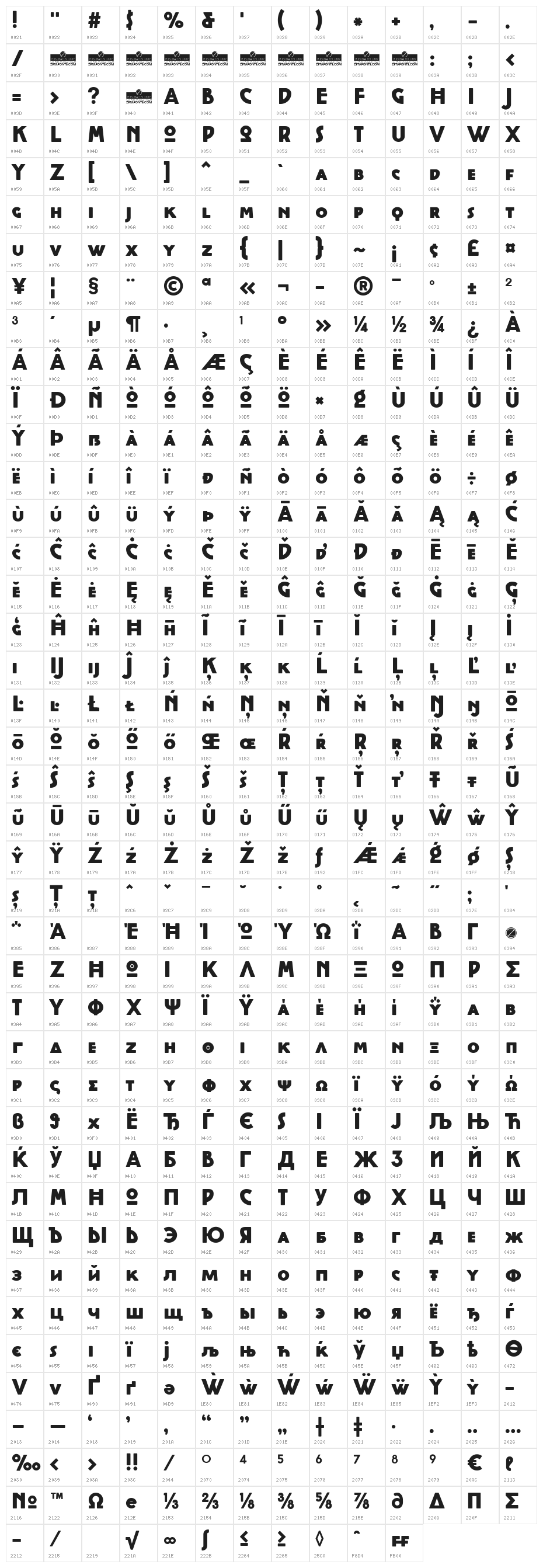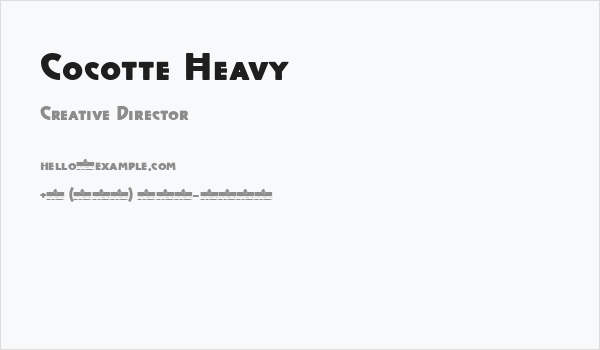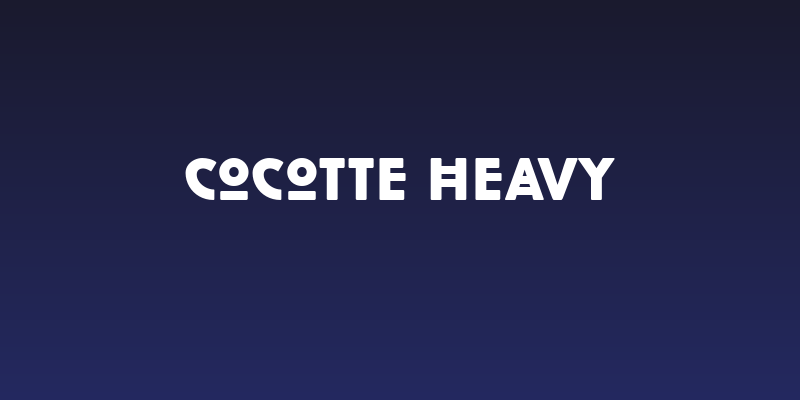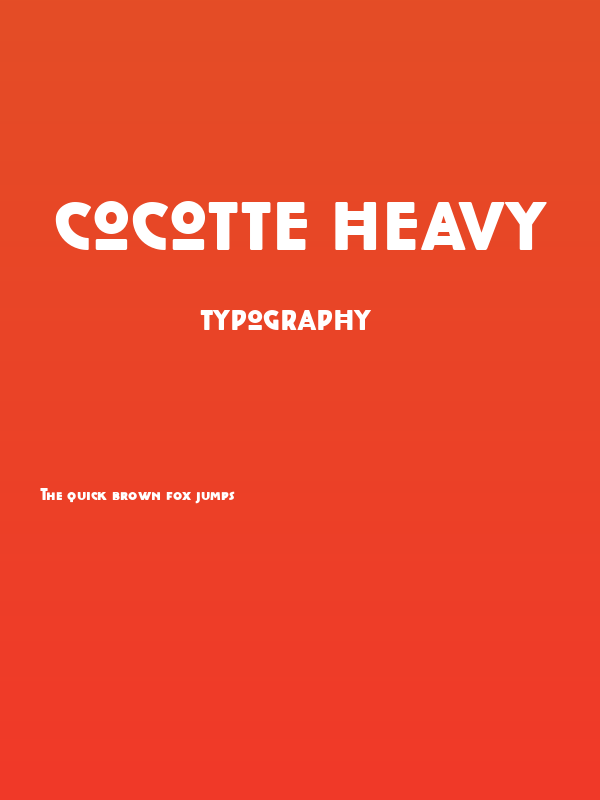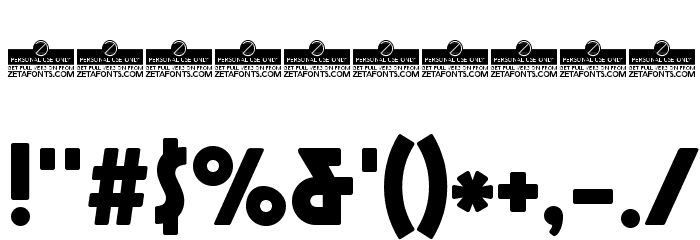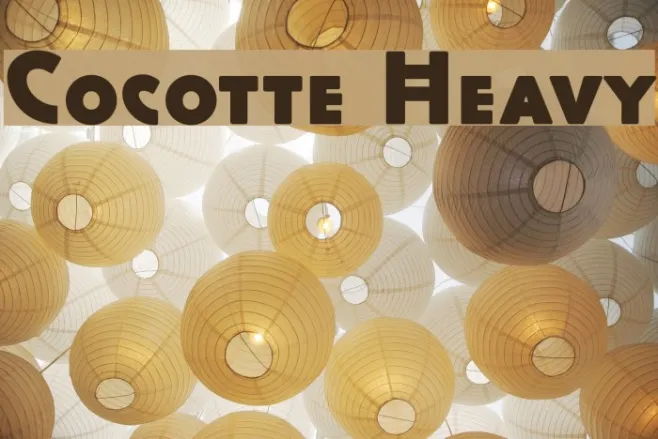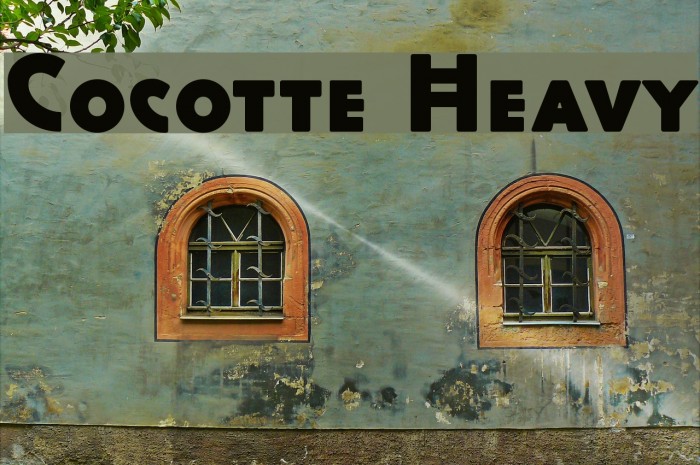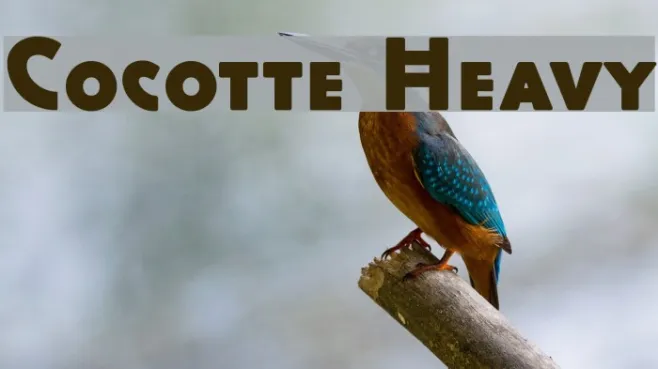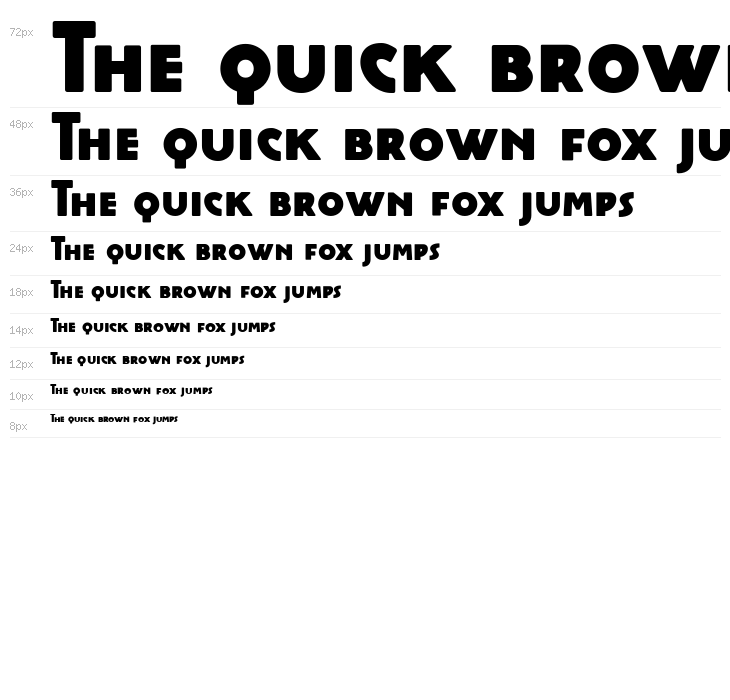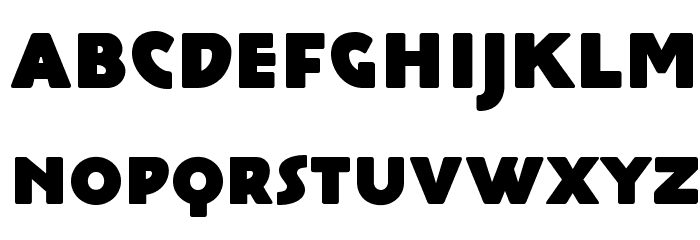
Cocotte Heavy Font
Cocotte Heavy Description
This font features a bold and impactful design with thick, uniform strokes that create a strong visual presence. The characters are crafted with a geometric influence, showcasing clean lines and sharp angles. The uppercase letters are particularly striking, with a consistent height and width that contribute to a cohesive look. The lowercase letters maintain the same boldness, ensuring readability and uniformity across different text sizes. The numerals and special characters are designed to match the overall style, providing versatility for various applications. This font's robust and modern appearance makes it suitable for attention-grabbing headlines and branding projects.
| Proposed Projects | Ideal for branding, advertising, posters, and headlines. |